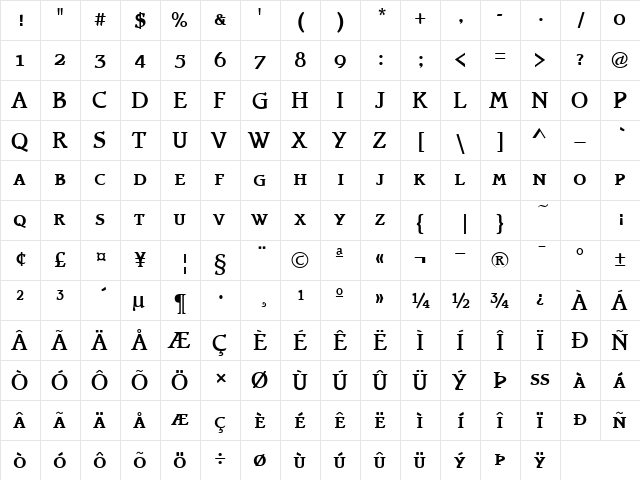
BravoSmc Bold
Design Context for BravoSmc Typeface
BravoSmc is a composed and adaptable typeface that performs quietly and consistently across a wide range of design contexts. Its bold stroke weight gives it real presence on the page.